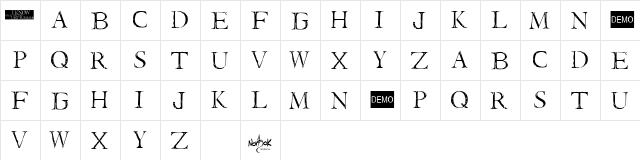
I Still Know DEMO Regular
| Designer | Thomas W. Otto |
Design Context for I Still Know DEMO Typeface
I Still Know DEMO takes a measured approach to typography — its balanced proportions and neutral character make it a reliable workhorse for both digital and print work.